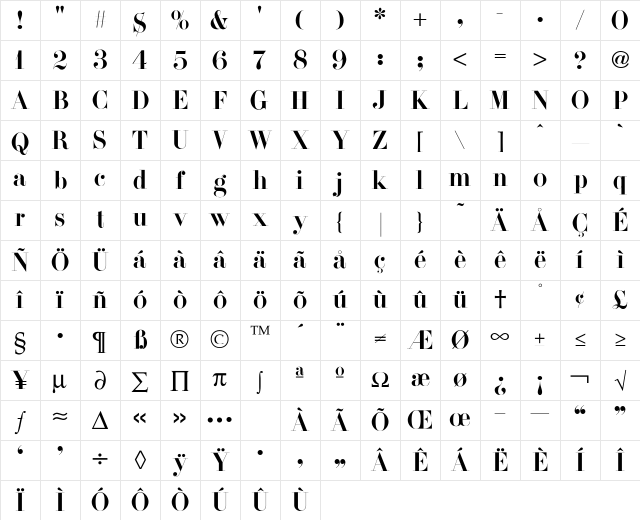
DidiFont Medium
Design Context for DidiFont
DidiFont is a composed and adaptable typeface that performs quietly and consistently across a wide range of design contexts.